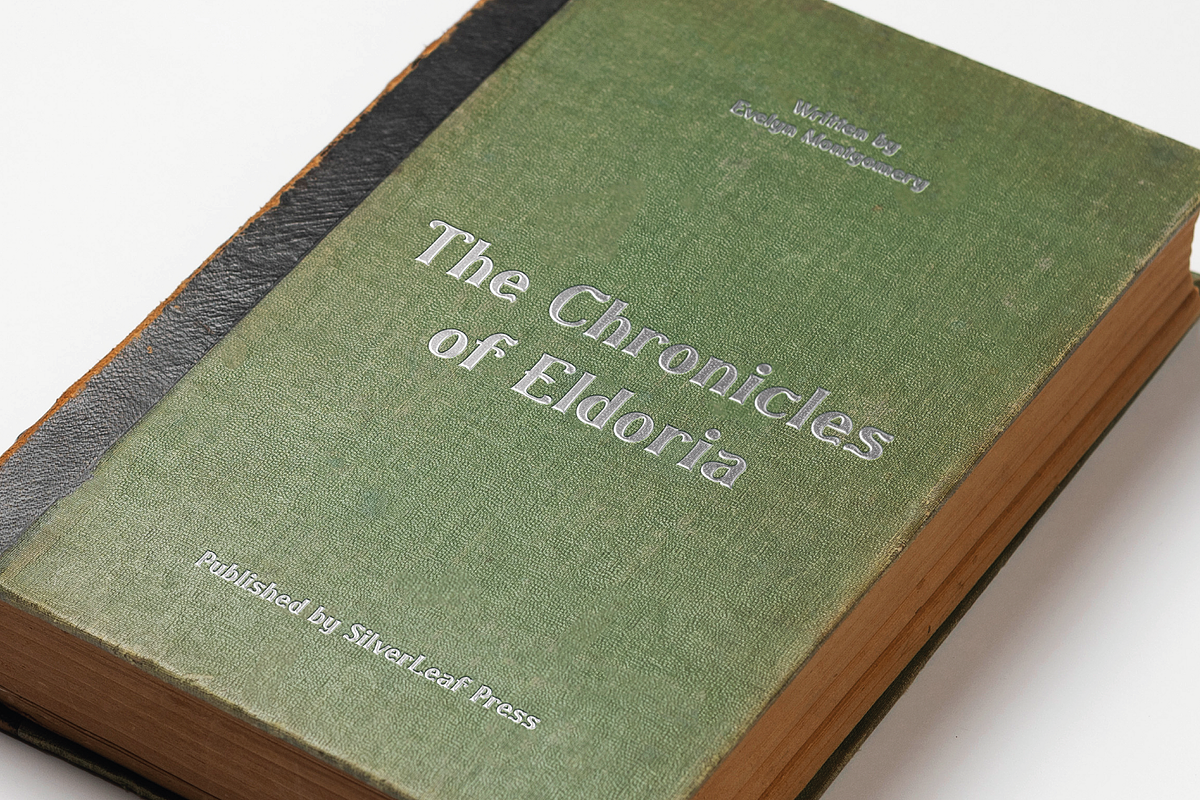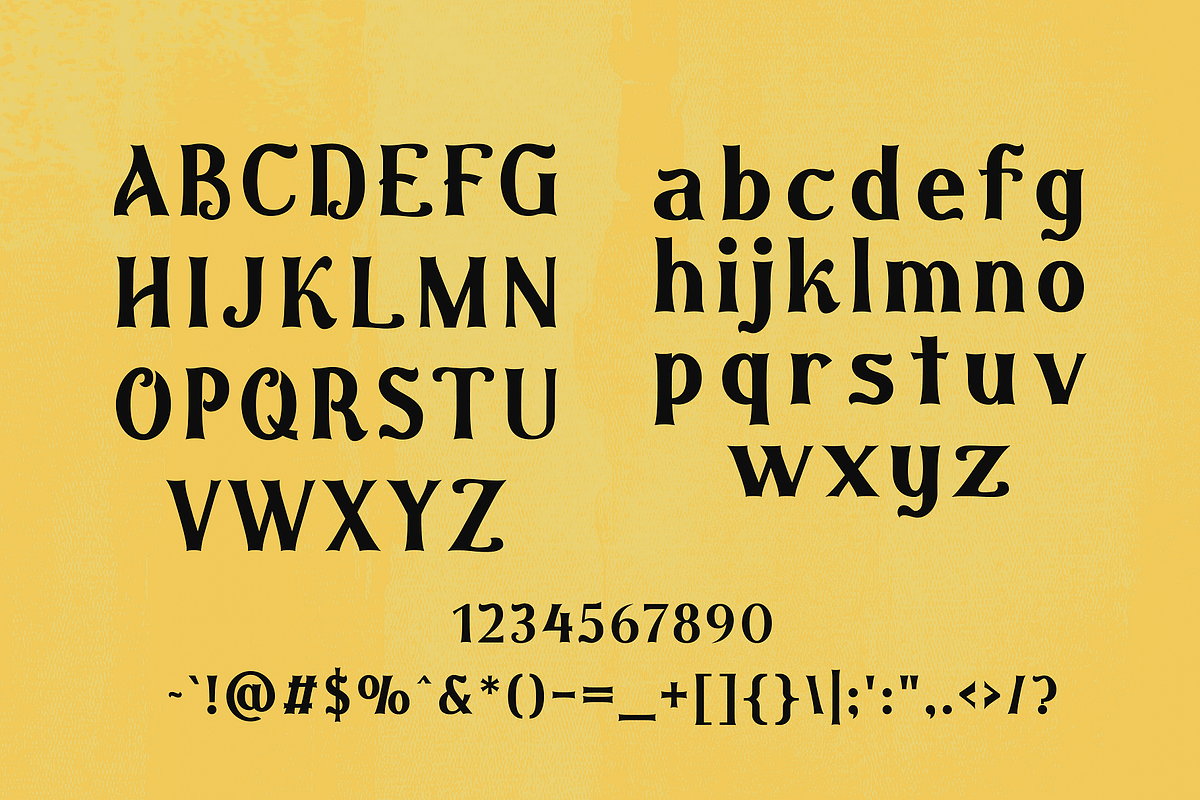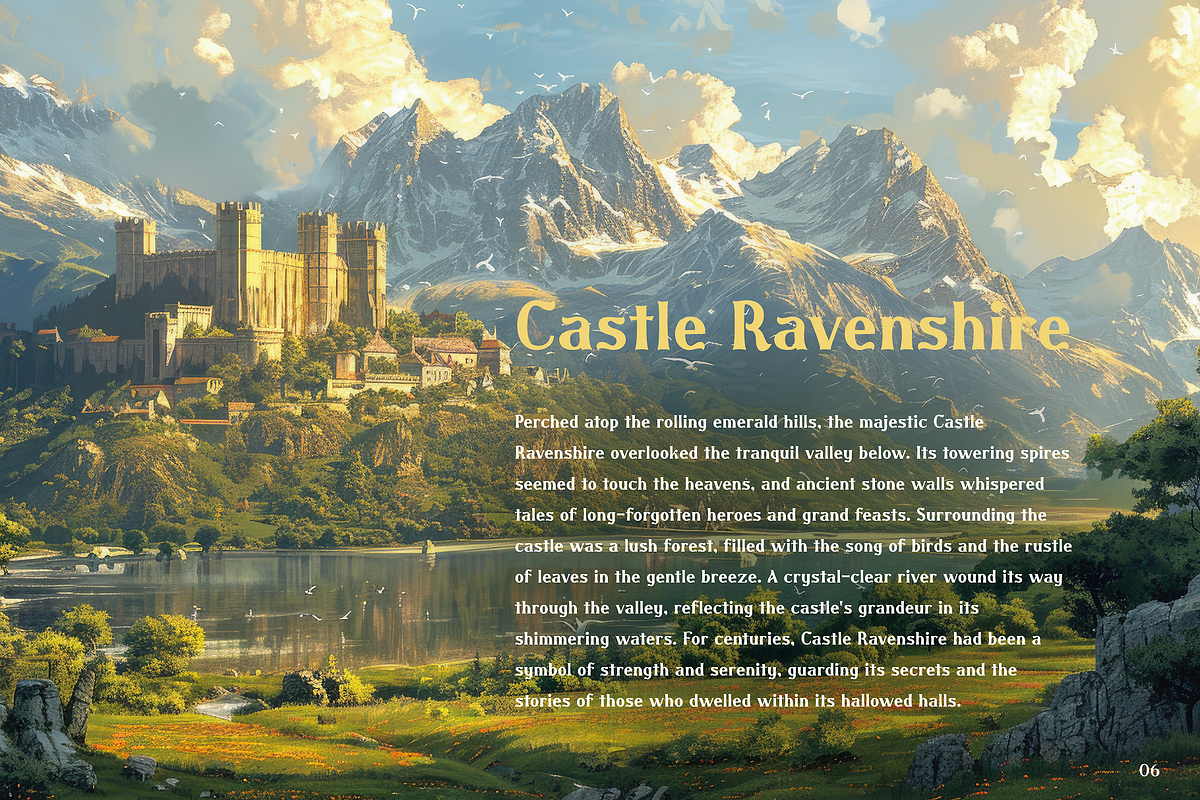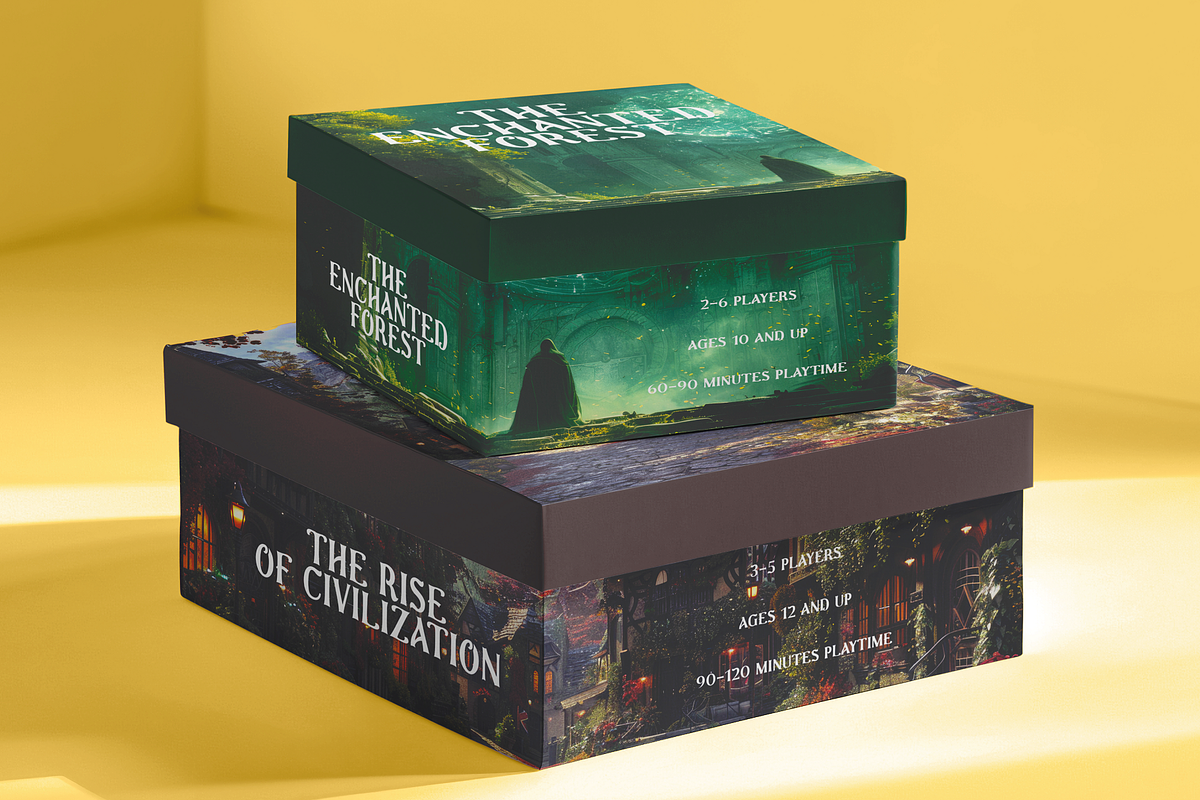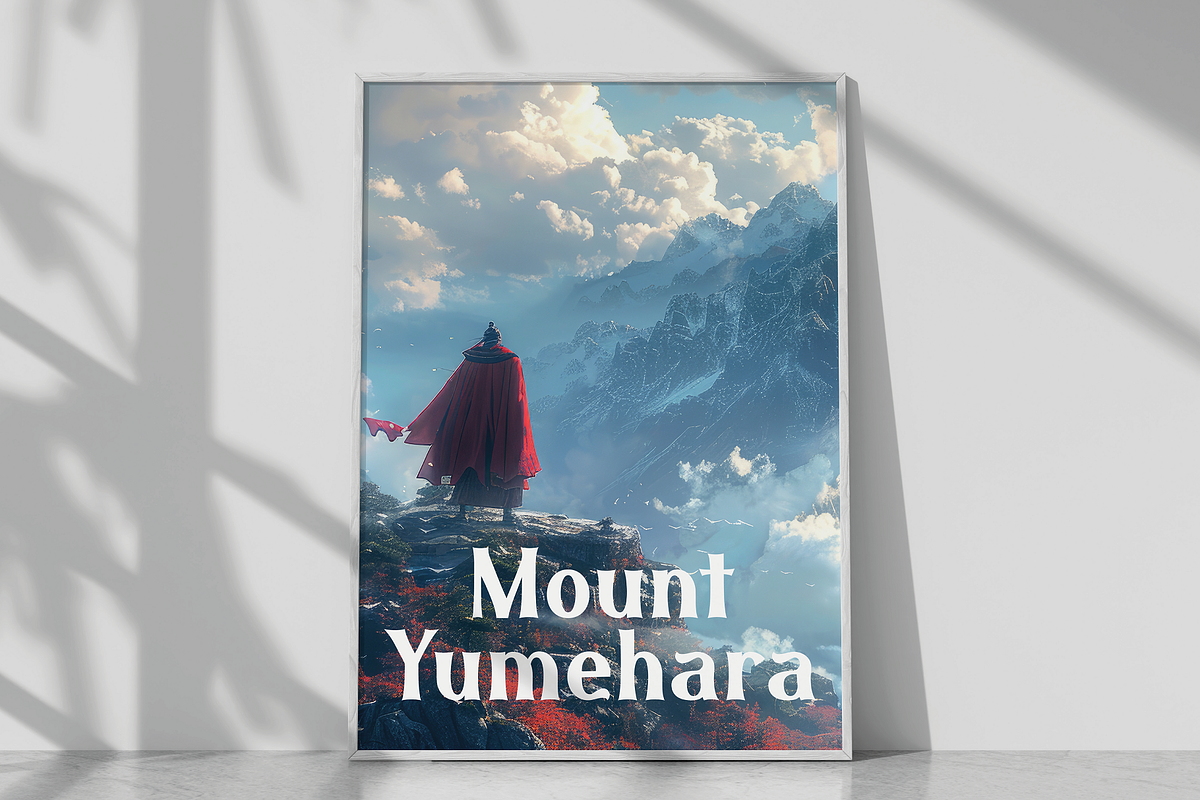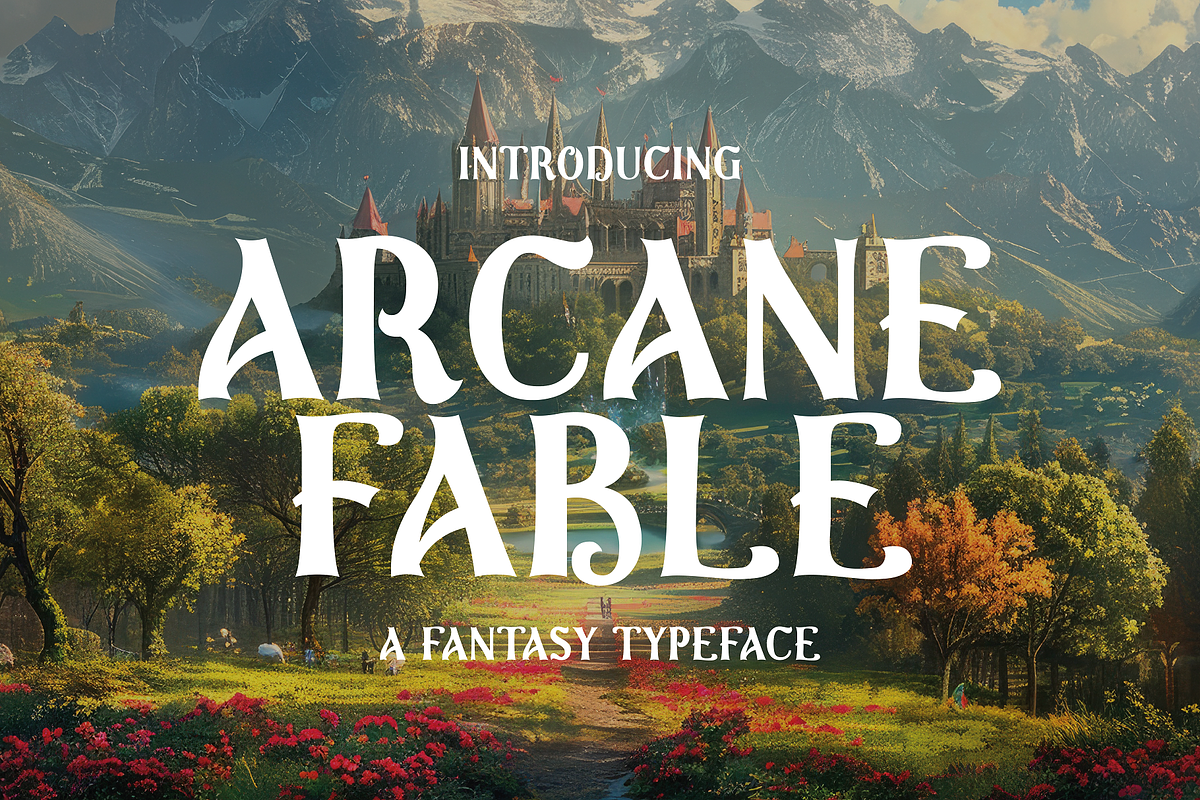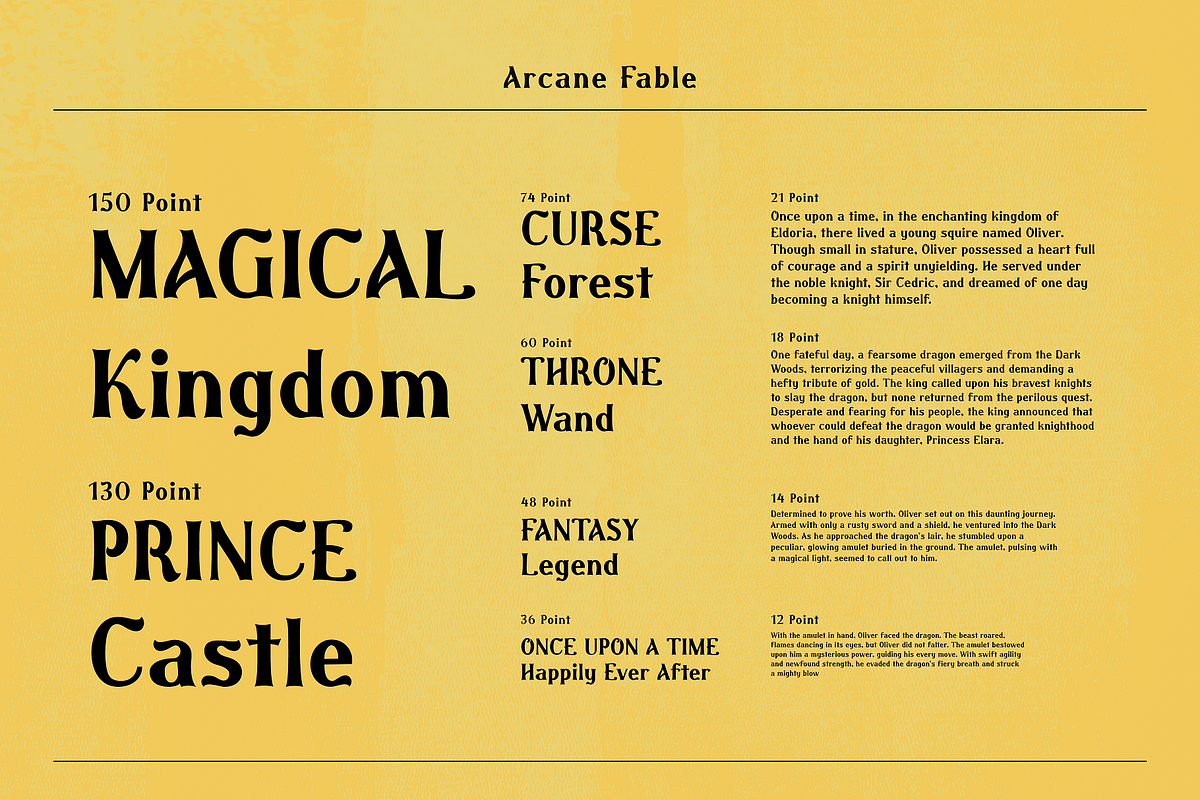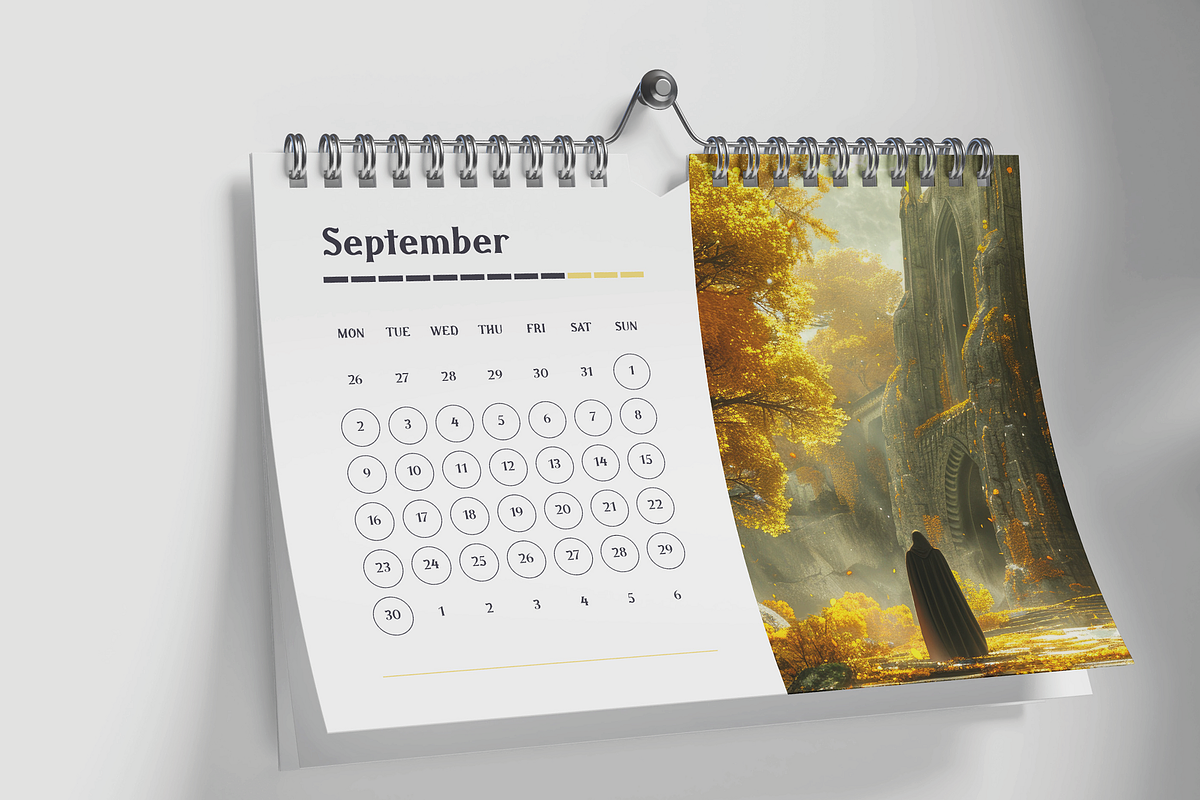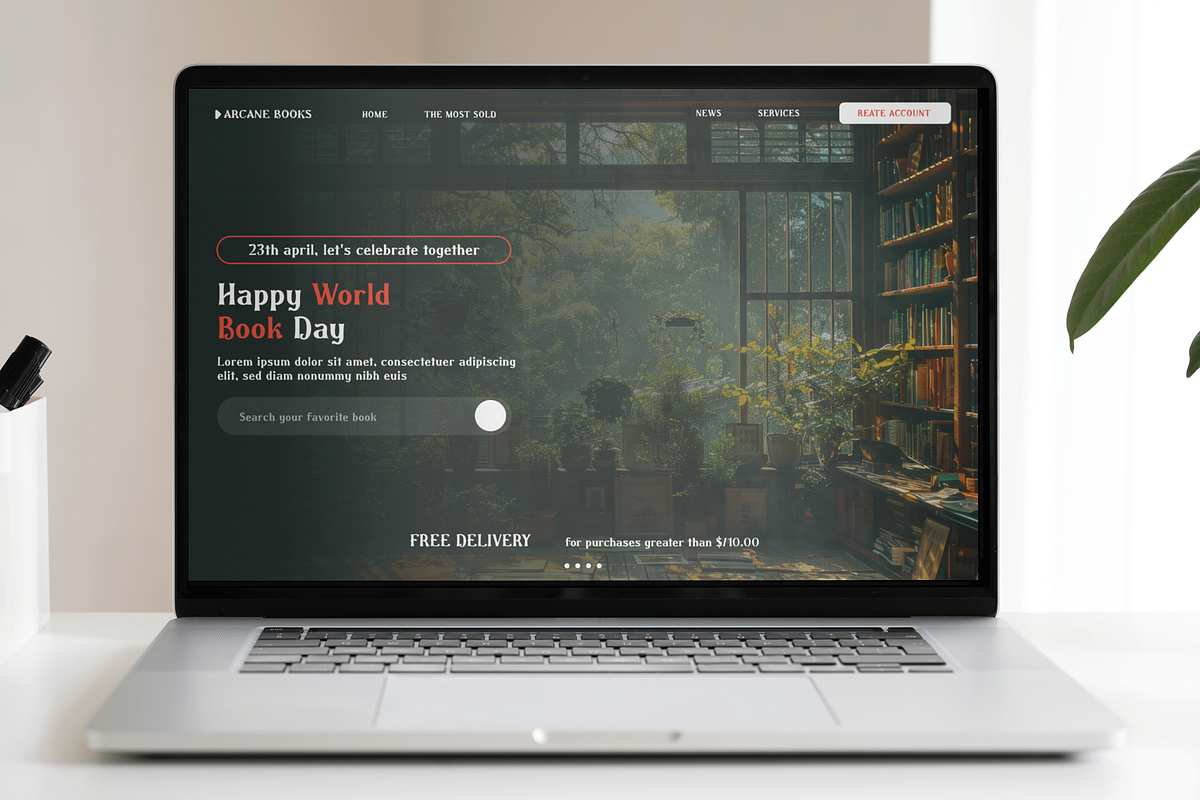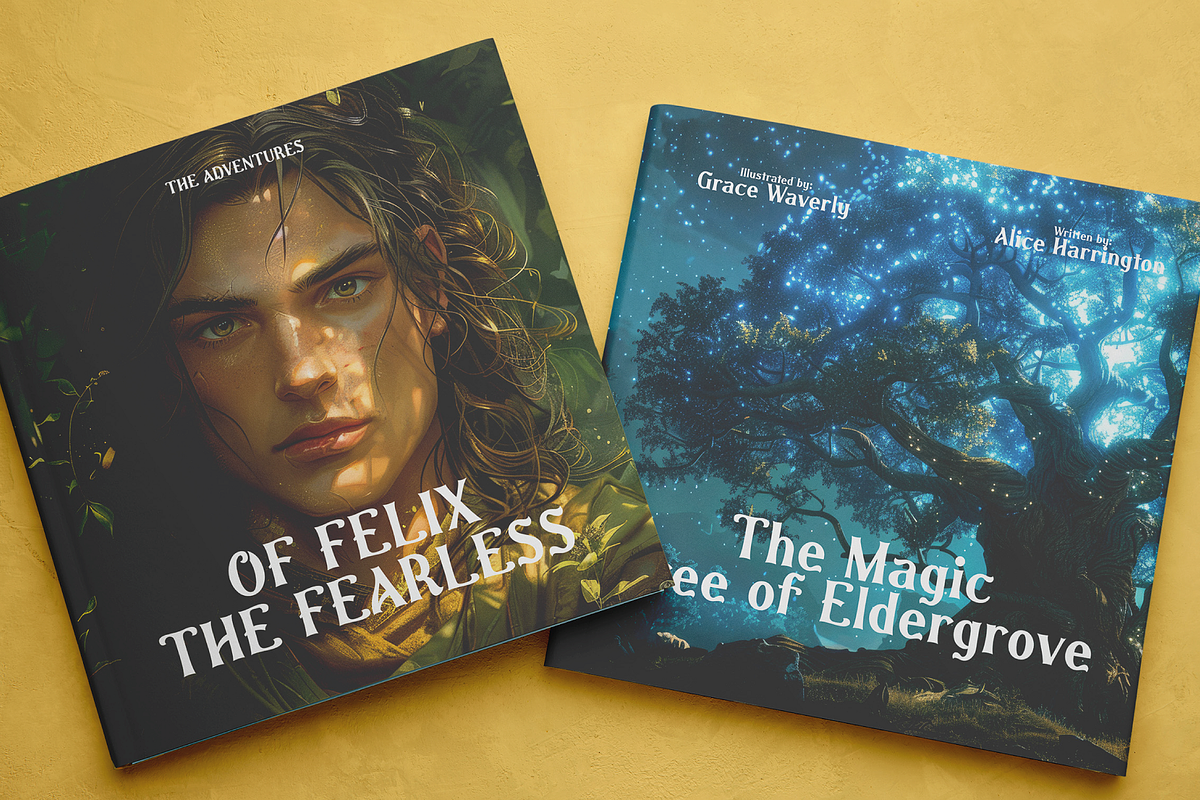
Arcane Fable - Fantasy Inspired Type
Introducing Arcane Fable, a fantasy-inspired typeface perfect for stories and books. This enchanting typeface captures the mystique and wonder of magical realms, bringing your tales to life with a touch of whimsy and grandeur.
Arcane Fable is designed to evoke the spirit of classic fantasy literature, with intricate letterforms that echo the elegance of ancient manuscripts and the charm of storybook illustrations. Each character is imbued with a sense of magic, featuring ornate swirls and delicate details that transport readers to a world of imagination and adventure.
Perfect for book covers, chapter headings, and body text, Arcane Fable enhances the reading experience by adding a layer of visual enchantment to your storytelling. Whether you're writing epic sagas, fairy tales, or whimsical adventures, this typeface provides the ideal blend of readability and fantasy flair.
With Arcane Fable, your words become a gateway to otherworldly realms, captivating readers and drawing them into the rich tapestries of your narratives. Its versatile design ensures that it can adapt to various genres within the fantasy spectrum, from dark and mysterious to light and whimsical.
Let Arcane Fable be the magical touch that transforms your stories into timeless classics. Elevate your writing with a typeface that speaks of enchanted forests, mythical creatures, and heroic quests. With its spellbinding charm and fantastical appeal, Arcane Fable is the perfect choice for authors and designers who wish to weave a little magic into their creations.